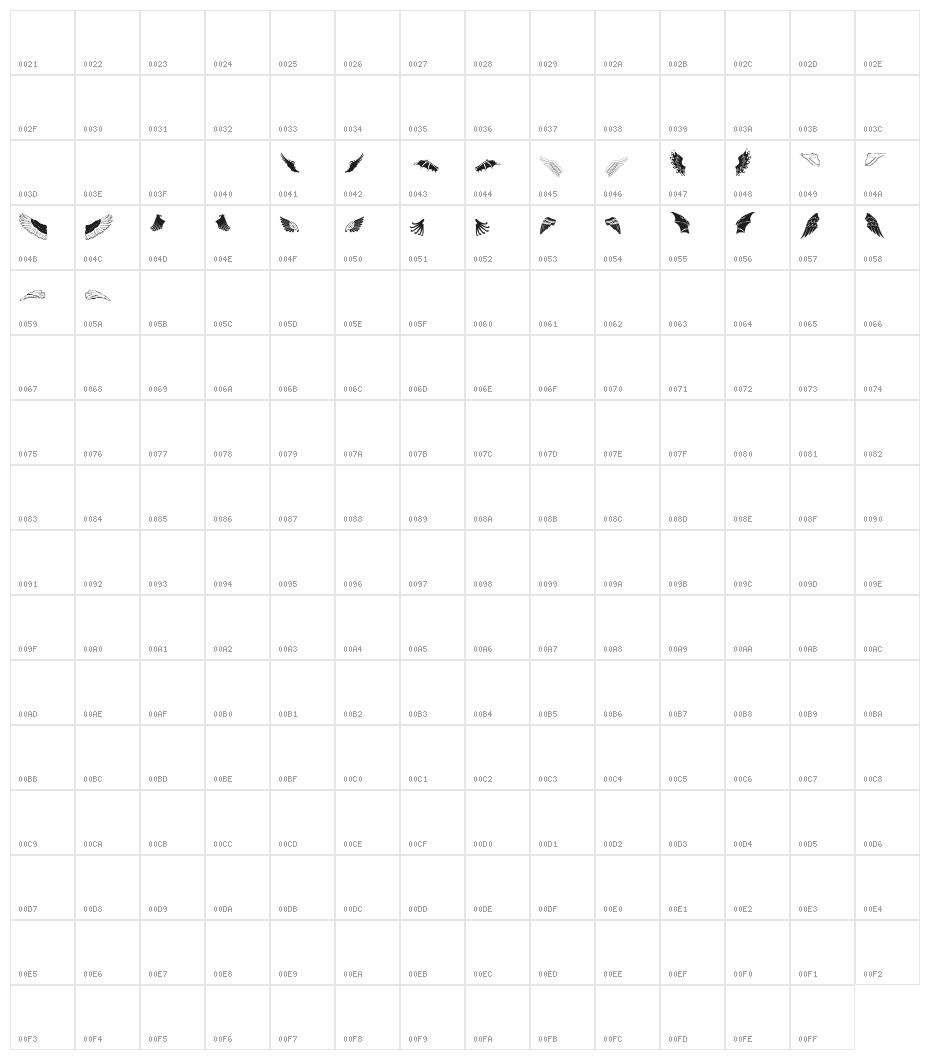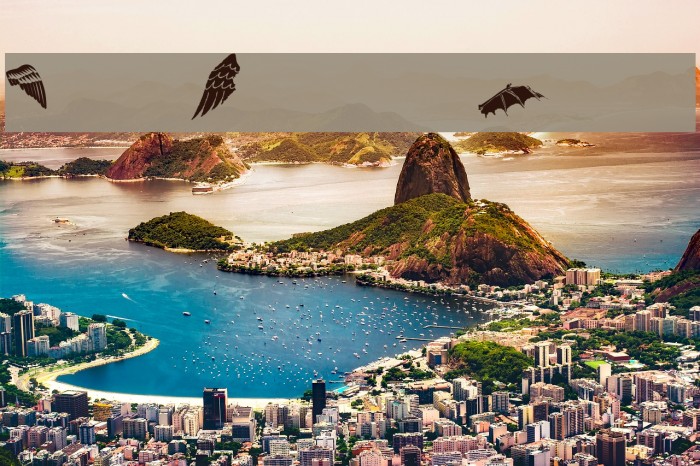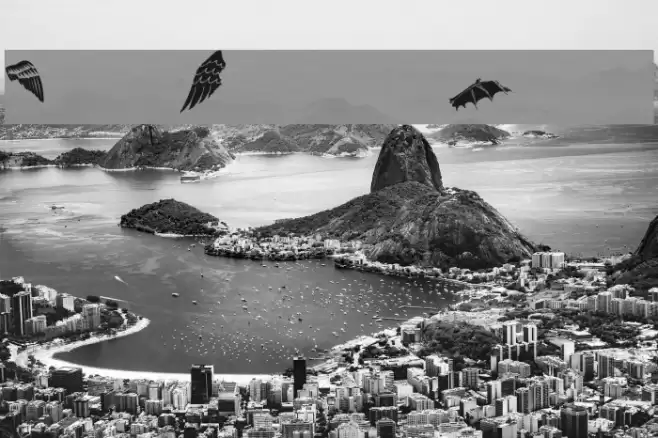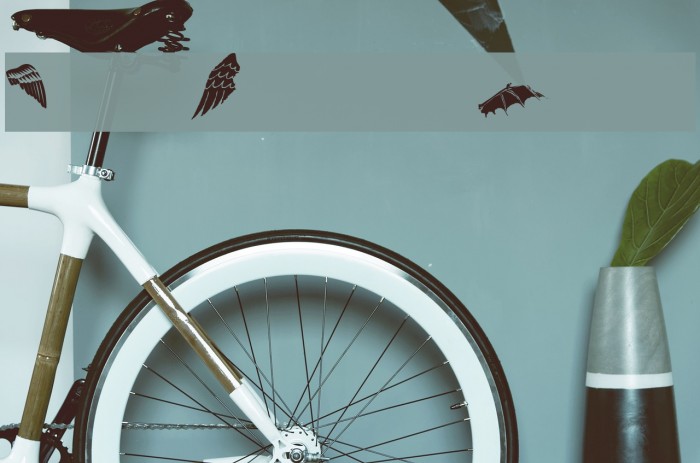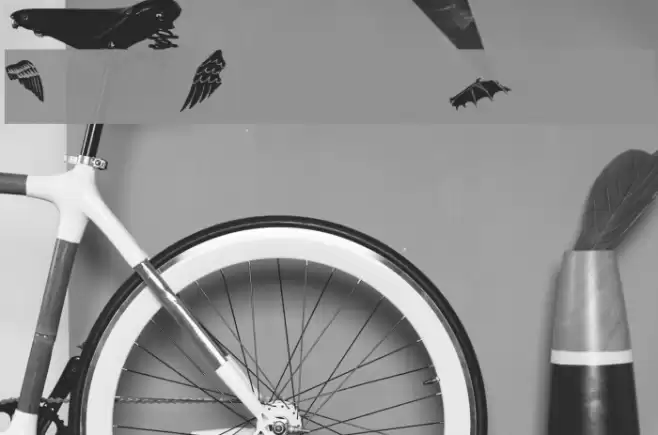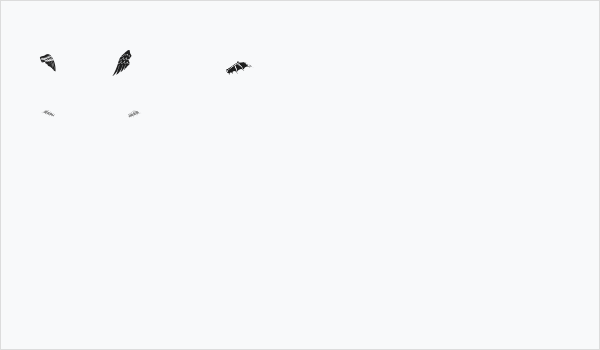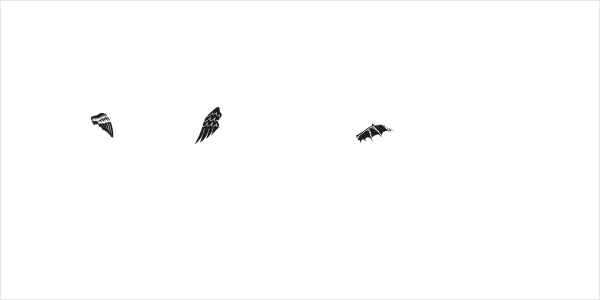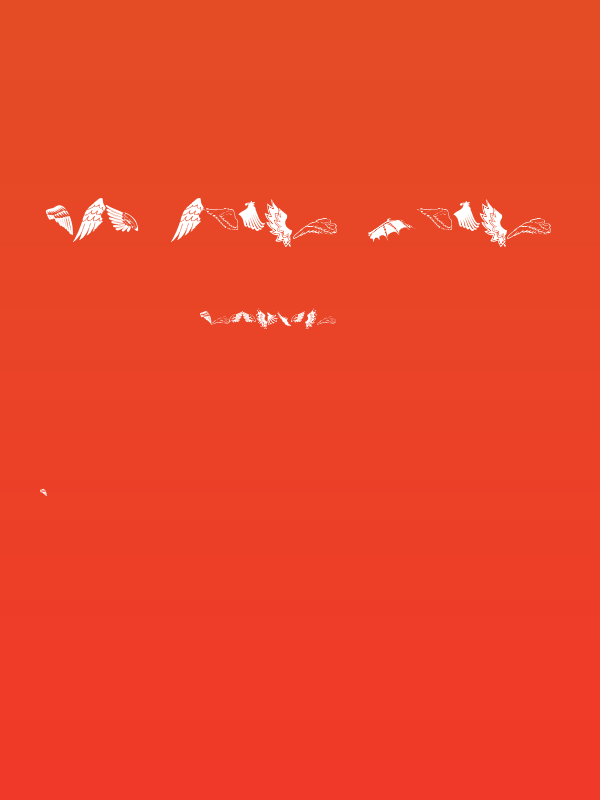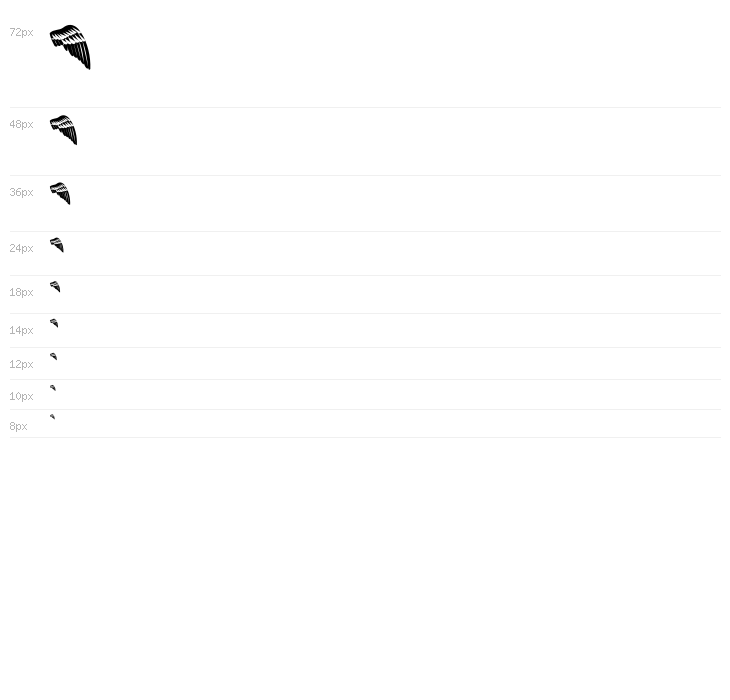
Two Wingy Dingy Font
Two Wingy Dingy Description
A decorative display set featuring various stylized wing illustrations, each pair distinct in shape, fill, and line detail, evoking both bird and bat motifs. The glyphs are highly graphic, with bold contrasts and intricate feather or membrane details, designed for visual impact rather than text legibility.
| Overall Style | Decorative, Fantasy, Graphic |
| Use Case | Logos, Posters, Decorative Elements |
| Proposed Projects | T-shirt graphics, tattoo designs, fantasy book covers, logo elements, posters, digital stickers. |